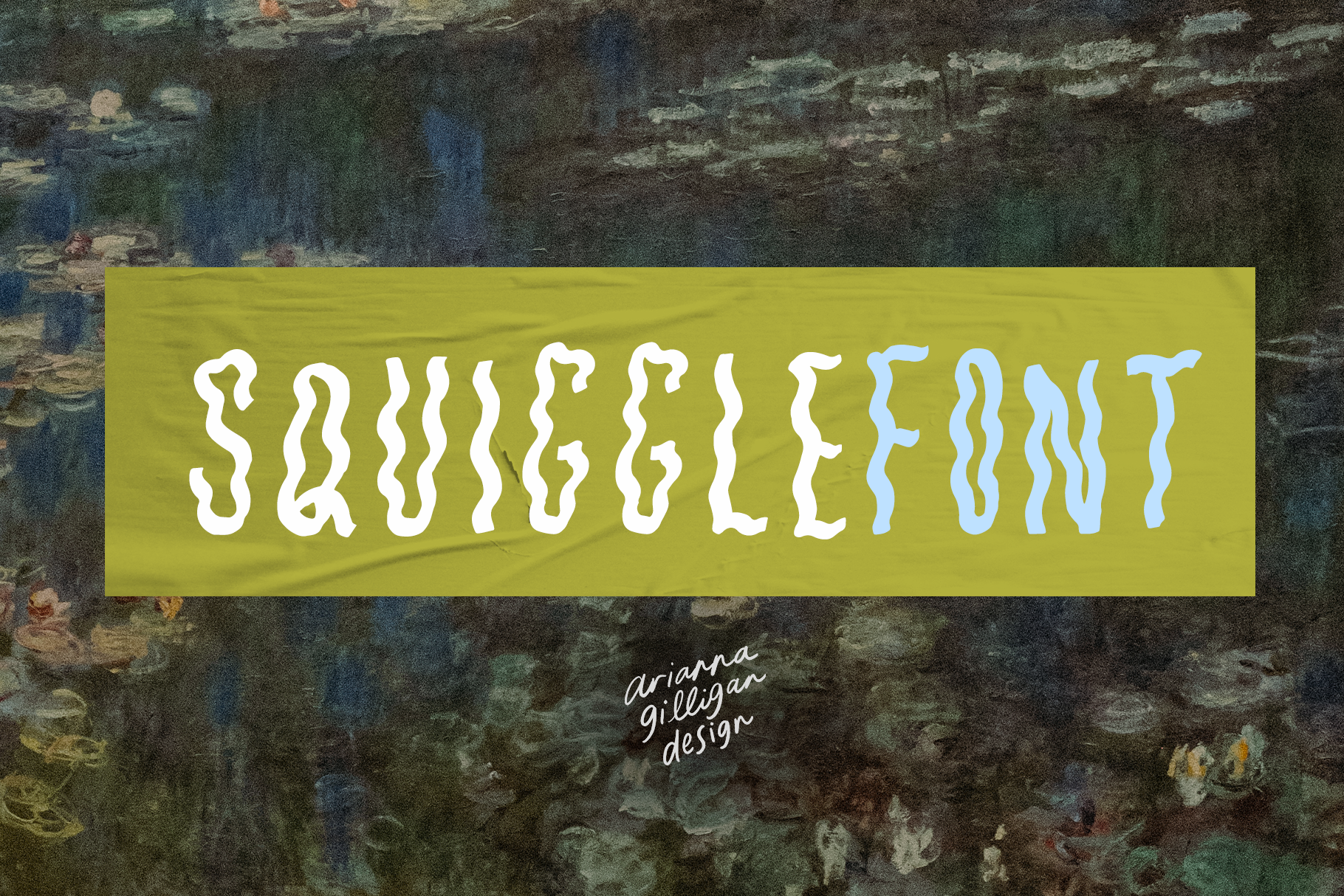
Squiggle Font
This organic-inspired sans serif was created to help add a personal touch to your project. Squiggle Font includes a perfectly imperfect shape as if it were freely drawn with pastels on paper.